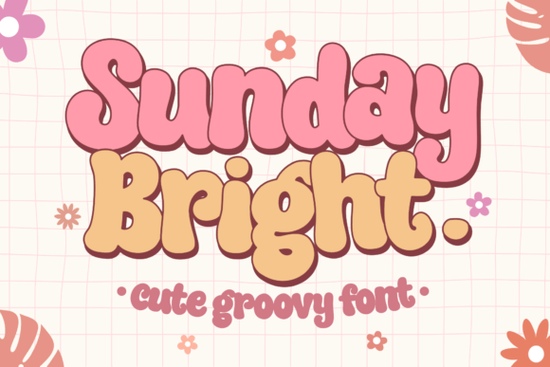
If you're looking for a display font that brings cheerful energy without overwhelming your design, Sunday Bright Font is worth a closer look. With its groovy curves and retro-bold personality, it adds just the right amount of playful charm ideal for projects where you want to stand out but keep things light and friendly. Whether you're designing a children’s book cover, a summer-themed poster, or custom merchandise for a small shop, Sunday Bright delivers character without sacrificing readability.
What makes Sunday Bright work well for creative projects?
This font draws inspiration from 1970s typography think bold outlines, rounded terminals, and a bouncy rhythm but it’s been refined for modern use. Unlike overly ornate script fonts, Sunday Bright maintains clear letterforms, so it stays legible even at smaller sizes or on busy backgrounds. That balance makes it especially useful for designers who need a standout headline font that still plays nice with supporting text.
For print-on-demand sellers, this kind of versatility matters. You can use Sunday Bright on mugs, tote bags, or T-shirts without worrying about intricate details getting lost in production. And because it includes uppercase and lowercase letters plus punctuation optimized for display use, you won’t need to hunt for workarounds when crafting short phrases or brand names.
How does it compare to other playful display fonts?
Not all fun fonts are created equal. Some lean too cartoonish, while others feel dated. Sunday Bright hits a sweet spot: nostalgic but fresh, bold but not aggressive. If you’ve liked fonts like Helpful Person for its hand-drawn warmth or Lemon for its citrusy cheer, you’ll appreciate how Sunday Bright offers a similar upbeat vibe with a slightly more structured foundation.
It also pairs well with cleaner sans-serifs if you’re building a full brand identity. For example, you might use Sunday Bright for your logo or product name and a neutral typeface for descriptions or labels. This contrast keeps your design dynamic but organized a smart move for small businesses creating packaging or social media graphics.
When should you choose Sunday Bright over alternatives?
Consider this font when your project calls for:
- Seasonal designs (think spring markets, summer festivals, or back-to-school promotions)
- Youth-oriented products like kids’ apparel, activity books, or classroom decor
- Retro-inspired branding that avoids clichés (no disco balls required!)
- Short headlines or logotypes where impact matters more than paragraph text
If your aesthetic leans more minimalist or corporate, this probably isn’t your go-to. But for crafters making greeting cards, teachers designing classroom posters, or Etsy sellers creating whimsical stickers, Sunday Bright offers instant personality with minimal effort.
Other fonts in the same playful family include Summer Forever, which has a breezier, handwritten feel, and Wildflower School, great for educational or nature-themed projects. Each serves a slightly different mood, so it helps to test them side by side with your actual content.
Tips for using Sunday Bright effectively
Because it’s a display font, less is more. Stick to headlines, titles, badges, or short quotes. Avoid using it for body text or long captions it wasn’t designed for that, and forcing it will hurt readability.
Also, give it room to breathe. Add generous spacing around lines or words, especially if you’re layering it over photos or patterns. A subtle drop shadow or outline can help it pop on complex backgrounds without adding visual clutter.
Finally, check how it renders across devices if you’re using it digitally. While it looks great in print, some groovy details might soften on low-resolution screens so always preview before finalizing web or app designs.